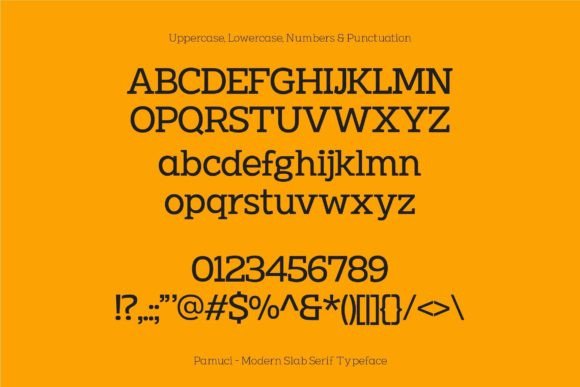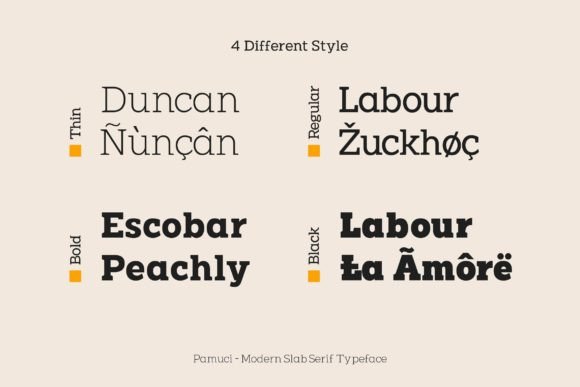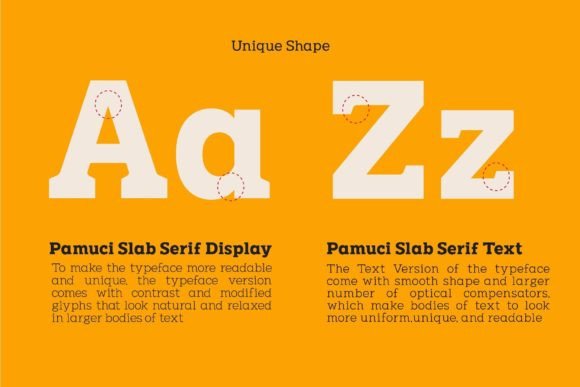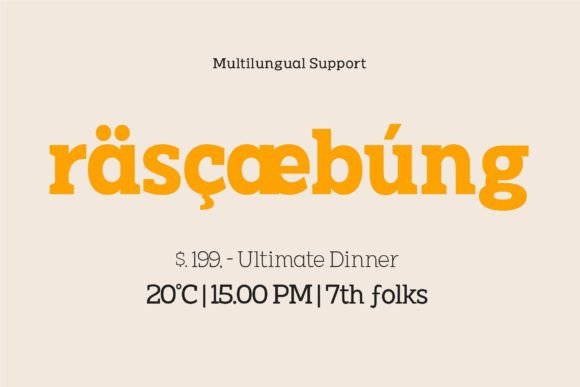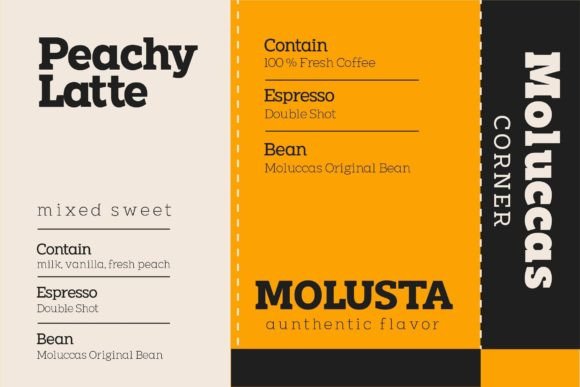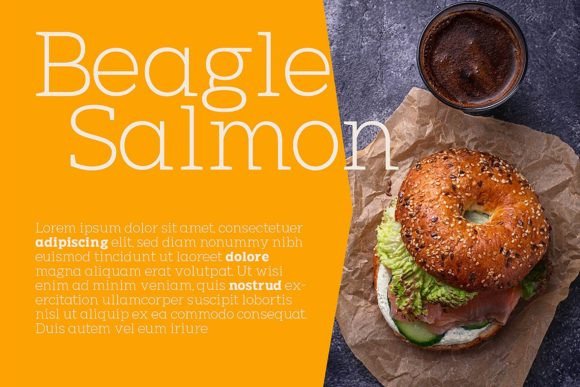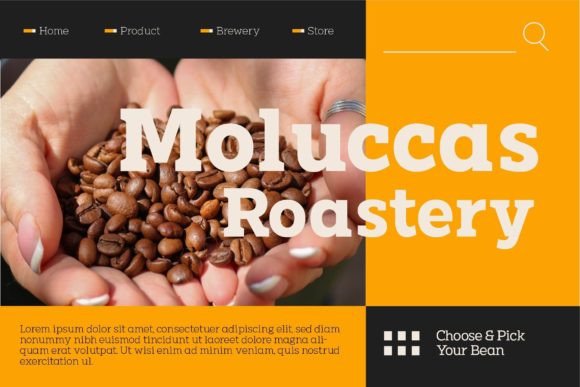
Pamuci Font
PAMUCI FONT SPECIMEN
Pamuci is a simple and modern slab serif family font. This minimalist and clean font can easily become your favorite. It can be used for books, magazines, social media posts, invitations, and so much more! So add this to your creations and take your designs to the next level!